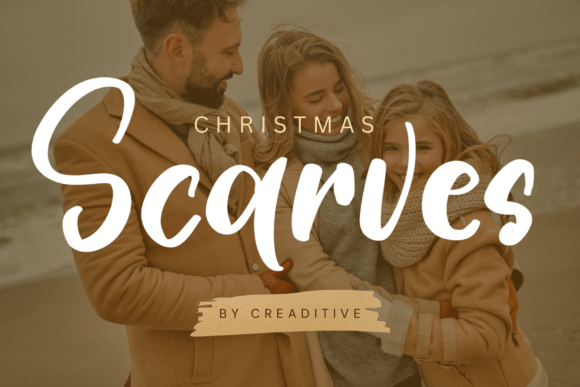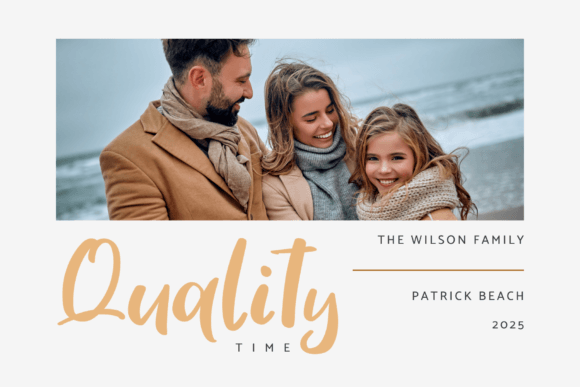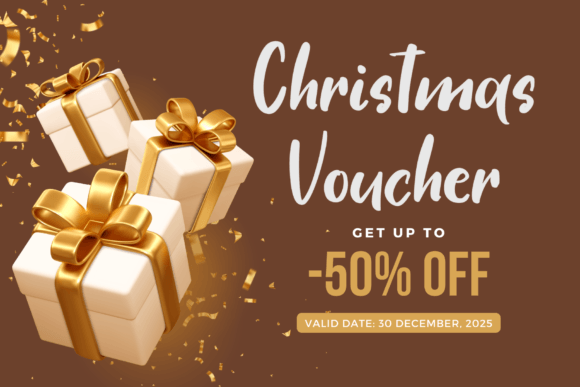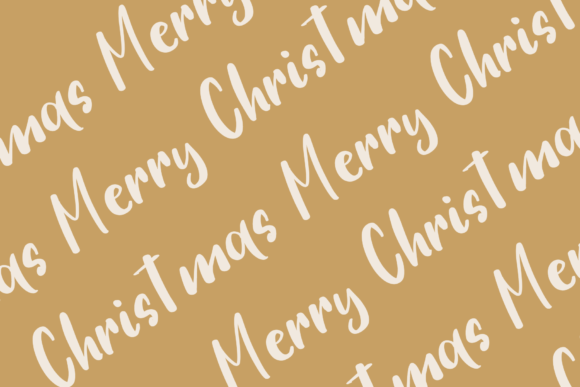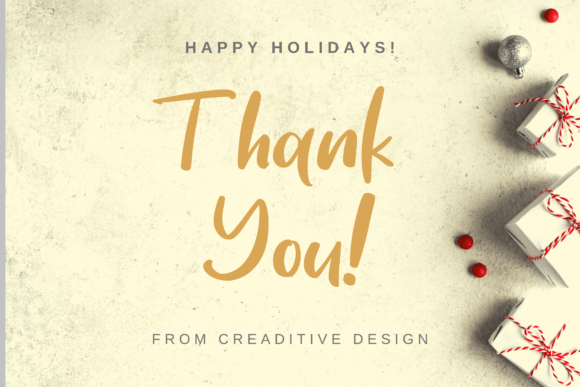
Christmas Scarves Font
About Christmas Scarves Font
Christmas Scarves Font is a ravishing script typeface designed to add luxury and festive charm to your projects. With graceful curves, stylish strokes, and a lively rhythm, this font captures the spirit of the holiday season while maintaining elegance and readability. Because of its adaptability, Christmas Scarves Font is an excellent choice for greeting cards, invitations, posters, logos, packaging, branding, and seasonal campaigns.
A Festive Script Typeface with Holiday Spirit
Script fonts are often used to create personal and stylish messages, and Christmas Scarves Font delivers that feeling with a festive twist. Its characters flow beautifully, creating a handwritten look that feels both magical and professional. Moreover, its balanced design ensures that it is suitable for decorative headlines as well as detailed text elements.
Perfect Typeface for Holiday Cards and Invitations
During the holiday season, Christmas ScarvesFont brings warmth and charm to personal designs. For example, it looks wonderful on Christmas cards, wedding invitations, and seasonal event stationery. In addition, it works perfectly for thank-you notes, festive menus, and party programs, ensuring your designs leave a lasting impression.
A Script Typeface for Branding and Packaging
Businesses can also rely on Christmas ScarvesFont for professional branding needs. It enhances boutique logos, product packaging, and promotional materials with elegance. Furthermore, it adapts well to digital advertising, magazine layouts, and social media content, making your brand identity stylish and festive. When paired with minimalist sans serif fonts, it creates a balanced and modern design.
Flexible Across Print and Digital Media
One of the strengths of Christmas ScarvesFont is its adaptability across platforms. In print, it enriches posters, catalogs, and merchandise with a luxury spark. Digitally, it integrates smoothly into blogs, websites, and e-commerce shops. Since it scales beautifully from small tags to large banners, it guarantees readability and sophistication in all contexts.